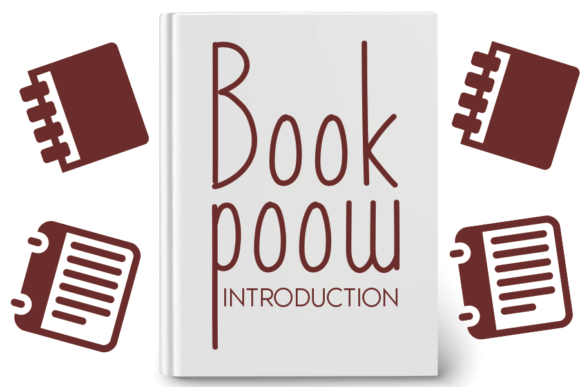
Introducing Book Poow Font, the ultra-sleek and sophisticated sans serif font that will transform your designs into masterpieces. Crafted with meticulous attention to detail by the talented andikastudio, Book Poow exudes a timeless elegance that is perfect for a wide range of projects, from stunning logos and eye-catching headlines to captivating Youtube videos.
Immerse yourself in the world of Book Poow and discover a font that is as versatile as it is beautiful. With its clean lines, balanced proportions, and subtle curves, Book Poow effortlessly enhances any design, adding a touch of sophistication and polish. Whether you're working on a modern website, a captivating social media post, or an unforgettable branding project, Book Poow has the power to elevate your designs to new heights.
Step into the spotlight with Book Poow, the font that commands attention and leaves a lasting impression. Its carefully crafted characters ensure exceptional readability, making your message shine through with clarity and impact. Whether you're creating captivating Youtube videos or crafting elegant invitations, Book Poow ensures that your words captivate and engage your audience, leaving them captivated by your message.
With Book Poow, every design becomes a work of art. Its minimalist aesthetic blends seamlessly with any design style, allowing you to create cohesive and visually stunning projects that reflect your unique vision. Experience the versatility of Book Poow and unlock a world of creative possibilities, where your designs take center stage and leave a lasting impression.